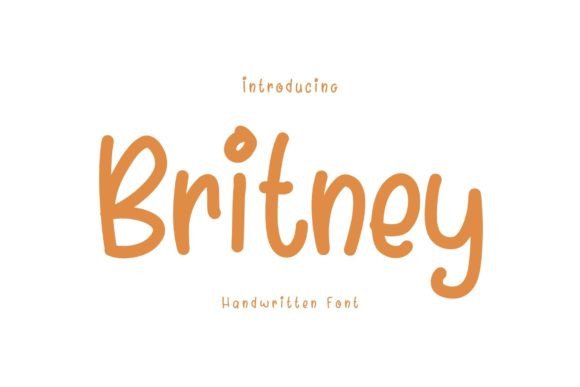
The Britney Font: A Playful and Authentic Addition to Your Designs
I’ll never forget the time I was working on a branding project for a children’s party planning service. I had the perfect color palette, the ideal illustrations, but I was stuck on finding the right font. That’s when I stumbled upon the Britney font, and it instantly brought my design to life! In this article, I’ll share my experience with this adorable handwritten font, its features, and how to make the most of it in your designs.
An Honest Review of the Britney Font
The Britney font has quickly become one of my go-to fonts for creative projects. Here’s what I love about it:
- ✨ Playful and authentic feel that adds a personal touch to any design
- ✅ Easy to read, even in smaller sizes
- 💕 Perfect for a wide range of projects, from blog posts to logos, branding, and more
- 🎉 Highly versatile and adaptable to different design styles
While the Britney font is amazing, there are a few minor quirks to be aware of:
- 🤔 Limited availability of stylistic alternates, which might limit its use in certain designs
- ⚠️ Not ideal for body text in large quantities, as it’s best suited for headings and titles
The Story Behind the Britney Font
The Britney font was designed by a talented typographer who wanted to create a font that embodied playfulness and authenticity. Inspired by classic handwritten fonts, the designer aimed to create a modern, fresh take on traditional typography. The result is a font that’s both cute and sophisticated, perfect for a wide range of creative projects.
| Font Name | Britney Font |
| Author | Brown Cupple Fonts |
| What type of projects is the Britney font best suited for? | The Britney font is perfect for blog posts, logos, branding, ads, invitations, greeting cards, planners, photo albums, decorations, and more! |
| Is the Britney font available in different weights or styles? | The Britney font is available in a single weight, but it has a range of stylistic alternates and glyphs that can be accessed through OpenType features. |
Overall, the Britney font is a fantastic addition to any design project. Its playful and authentic feel makes it perfect for a wide range of creative endeavors. With its ease of use and versatility, it’s no wonder it’s become a favorite among designers and crafters alike!